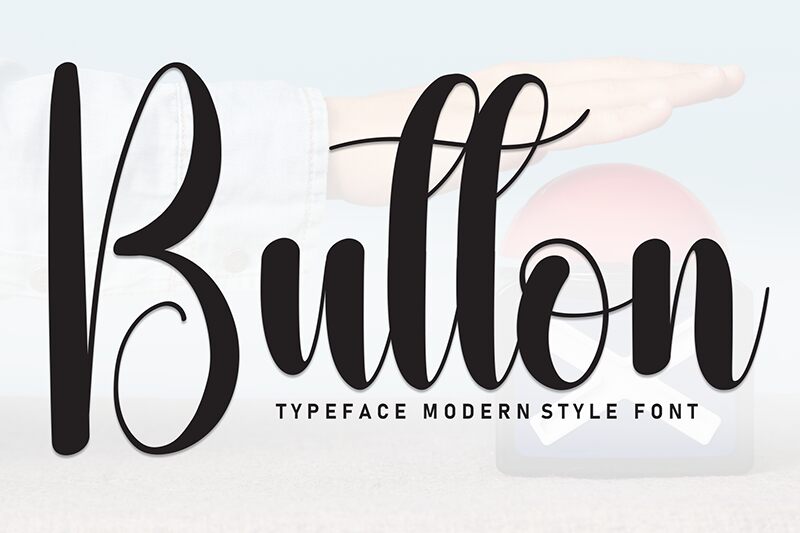
Button
Button font, designed by Andi Moz, is an elegant calligraphy font with a sophisticated presence. This flowing script displays expressive ligatures and ornate detailing, all of which stem from its modern calligraphy influences. Its intriguing handcrafted design delivers a natural presentation that is cheerful and readable.